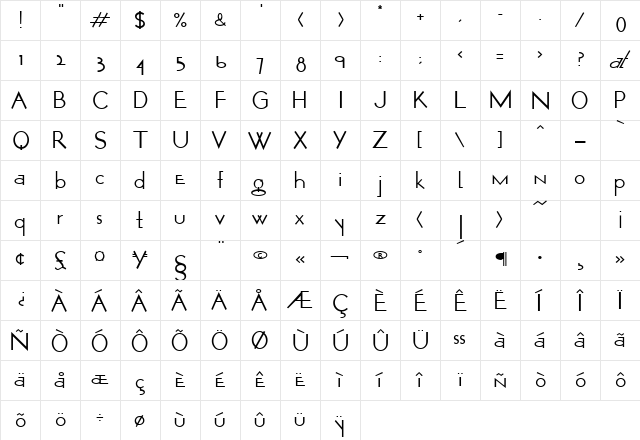
Complete Wurker Regular glyph index. Displaying only characters natively supported by Wurker Regular font.
Wurker is a composed and adaptable typeface that performs quietly and consistently across a wide range of design contexts.